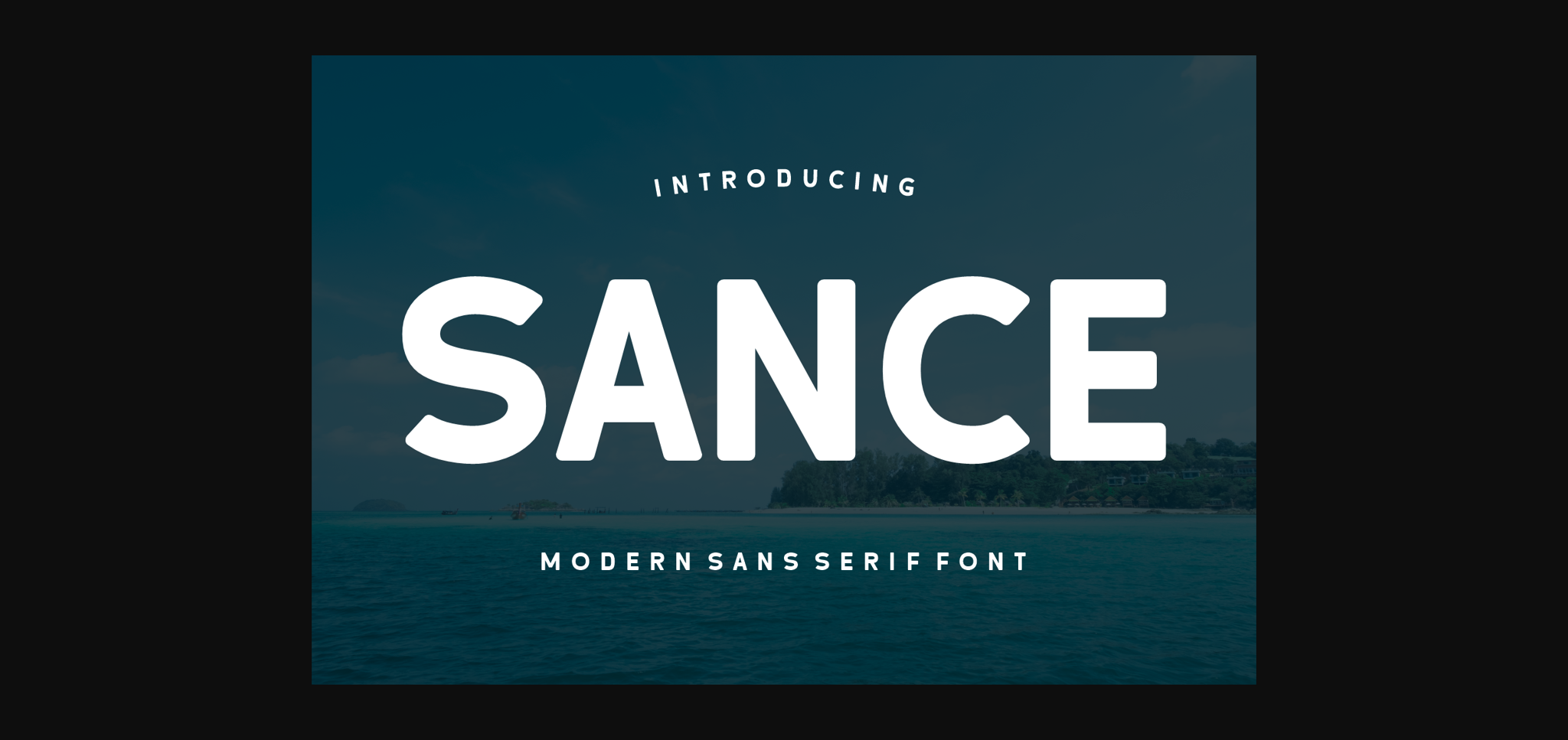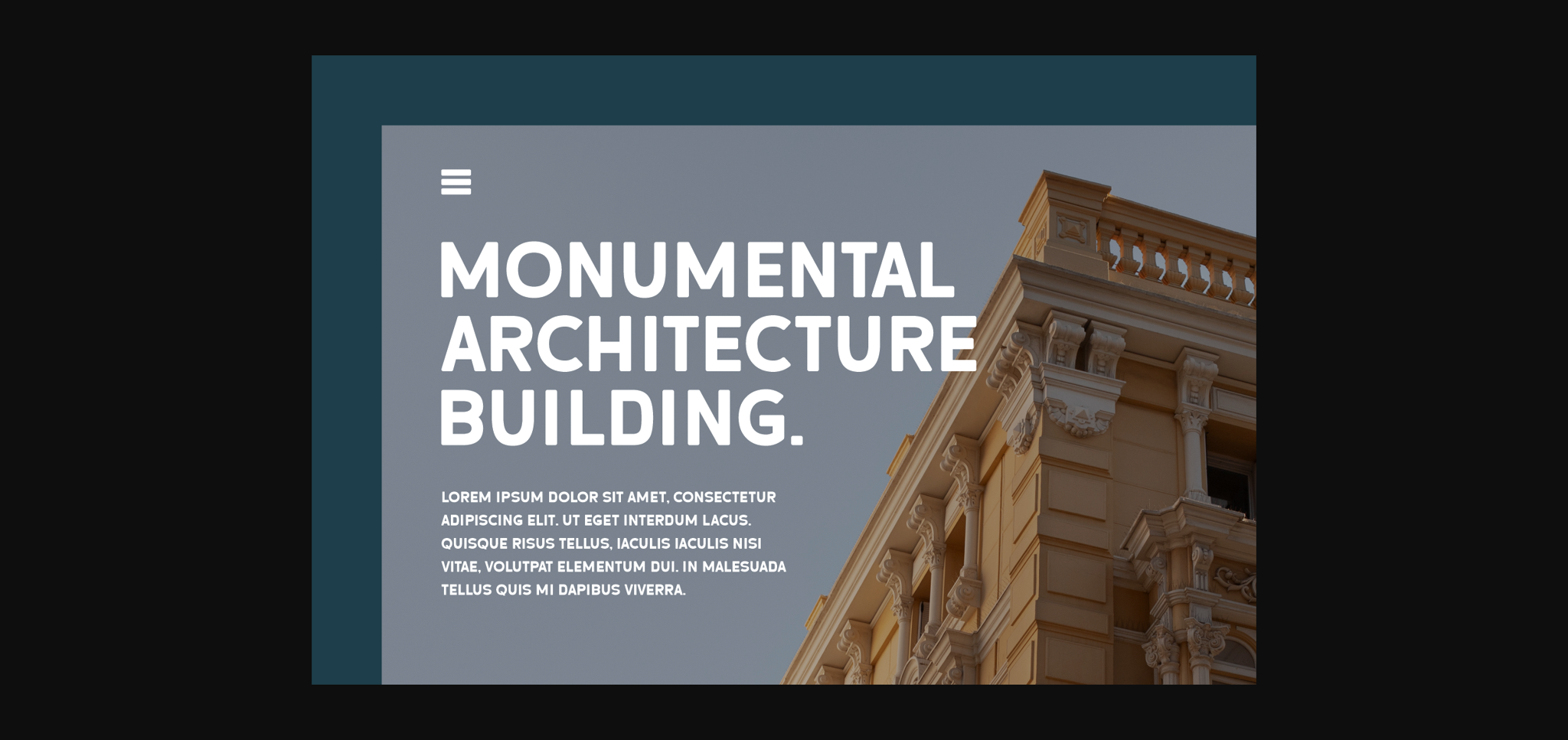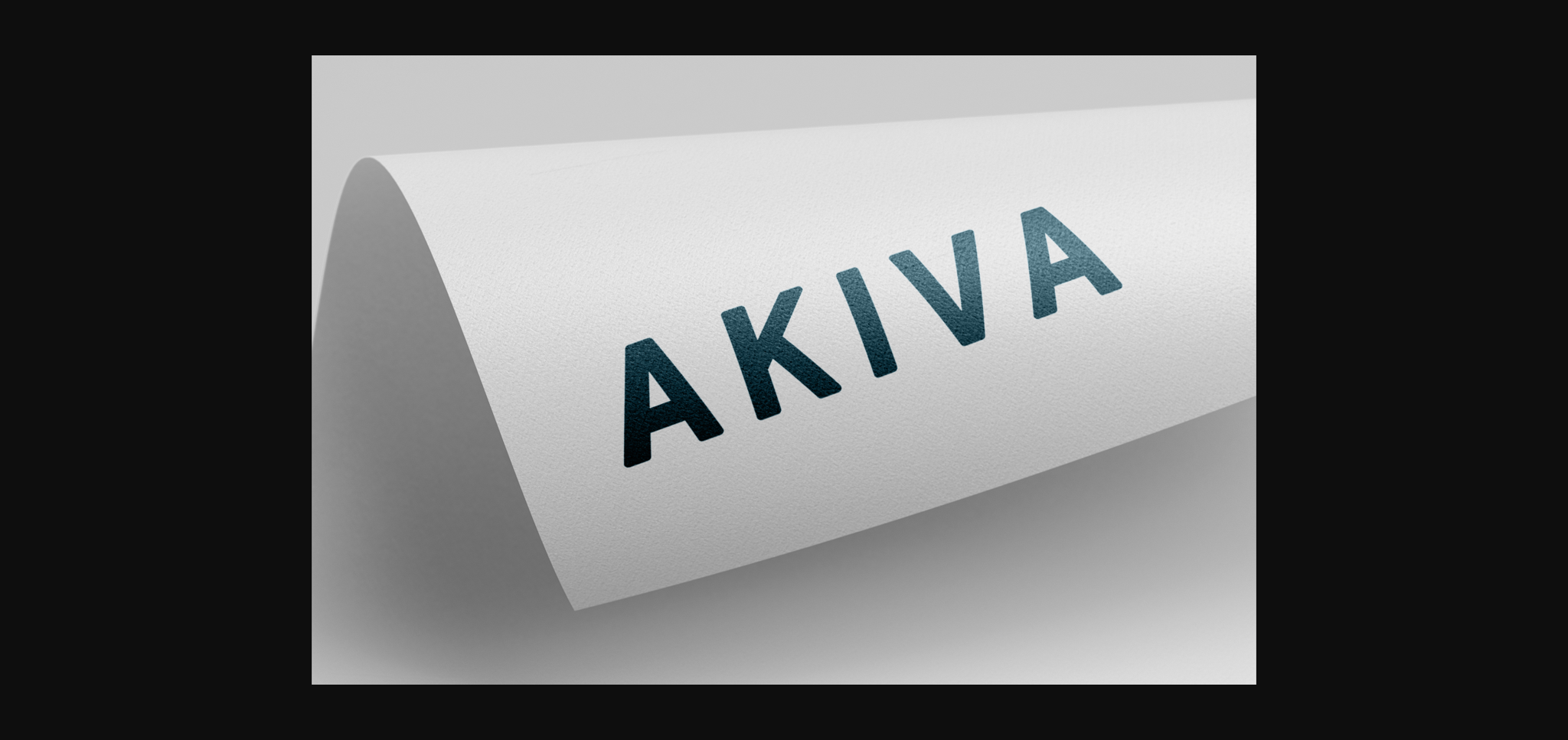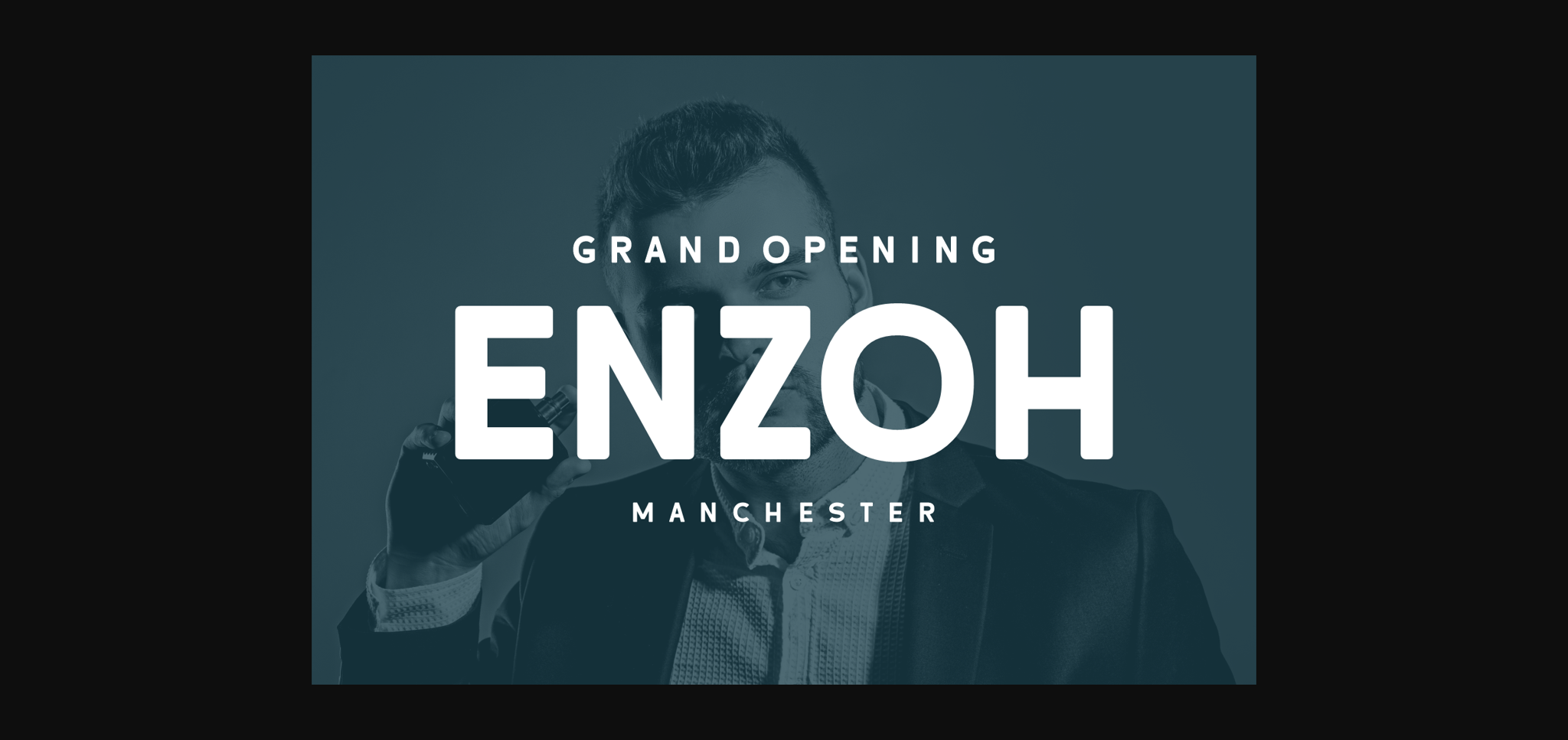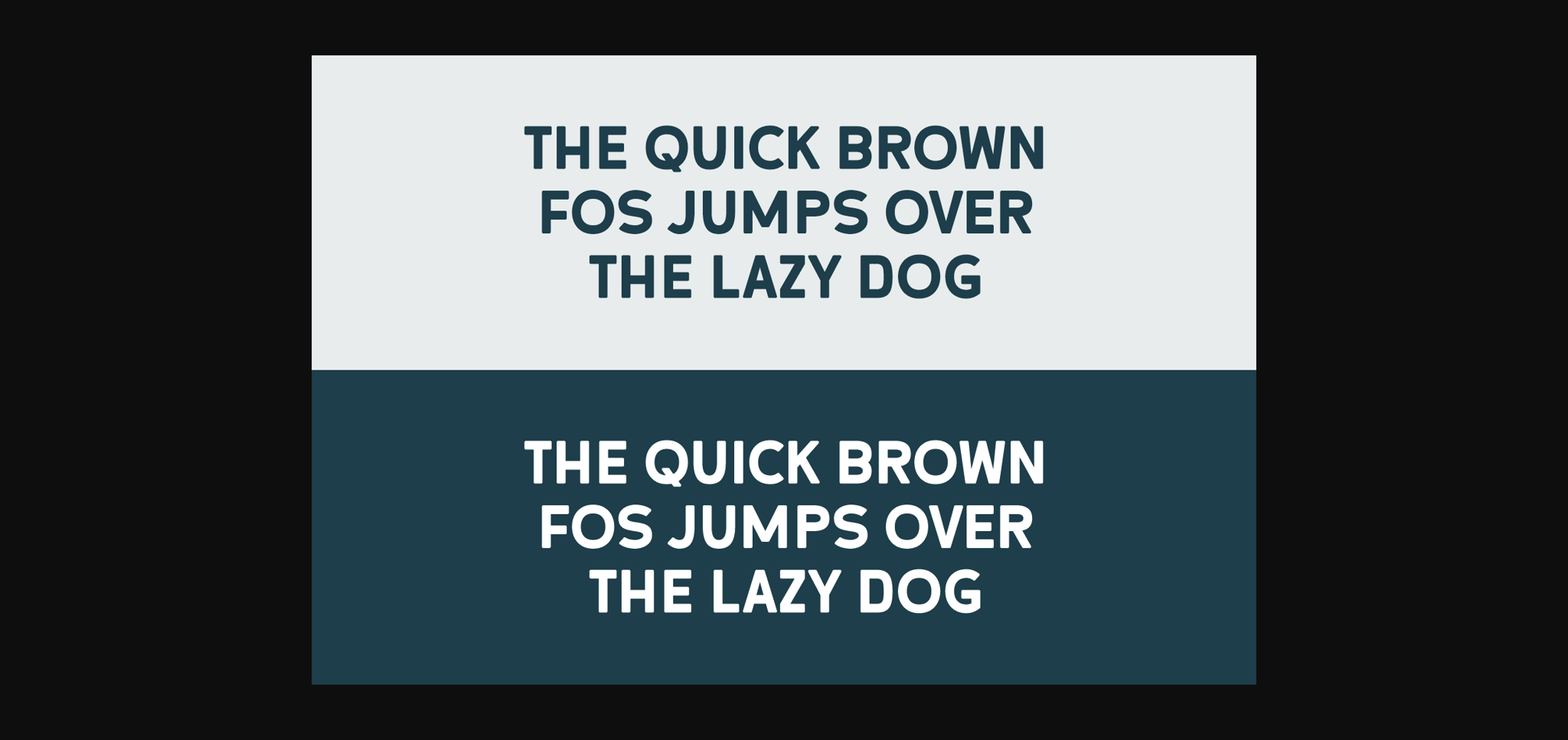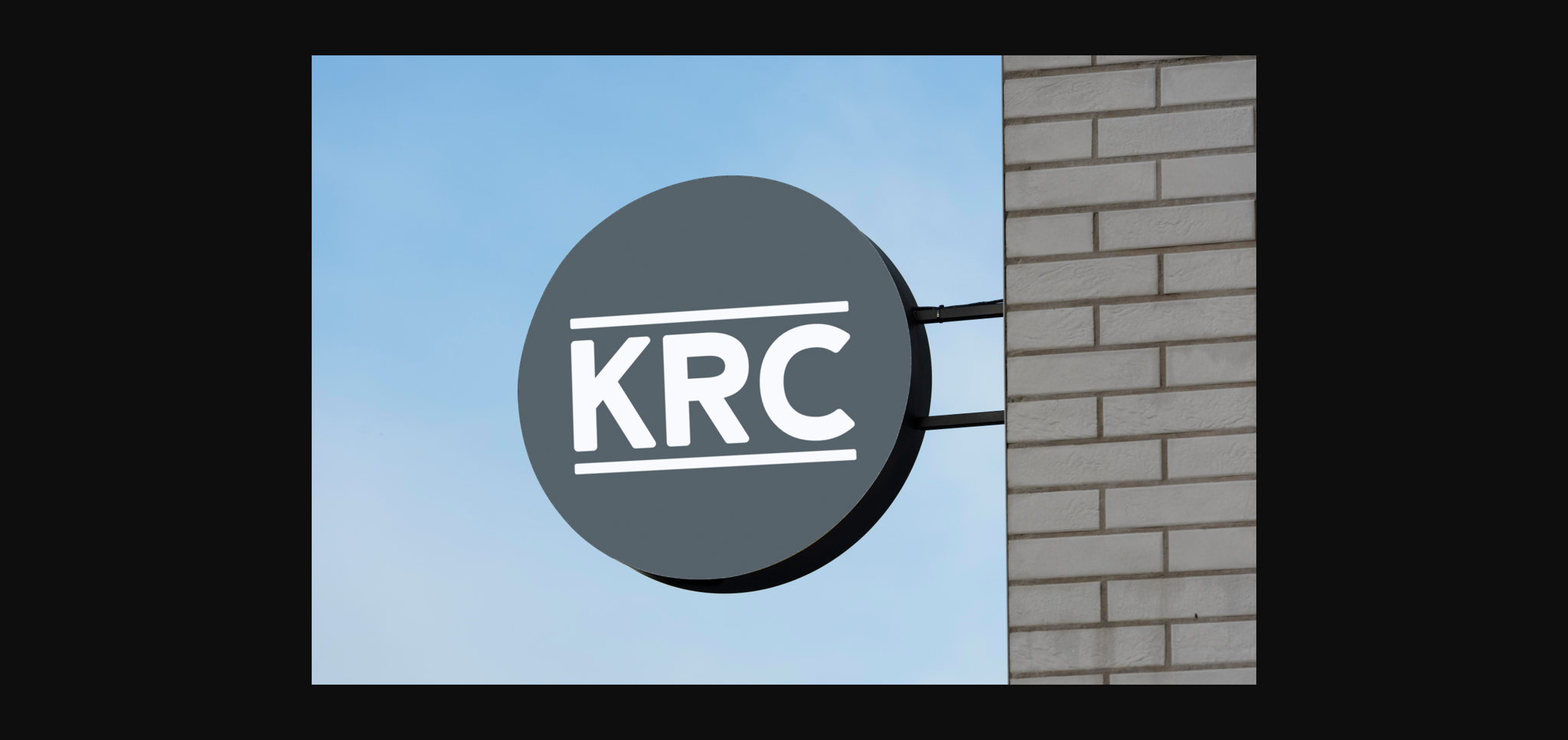
About Sance Font
Sance is a modern sans-serif font characterized by its clean lines and balanced proportions. With a sleek and minimalist design, it offers versatility for various design applications, from corporate branding to web design. Its clarity and legibility make it an excellent choice for conveying a contemporary and professional aesthetic.